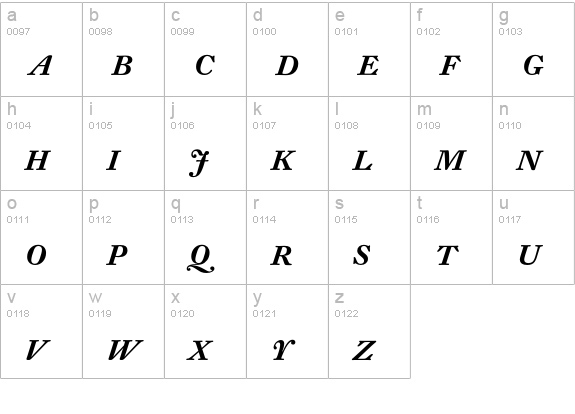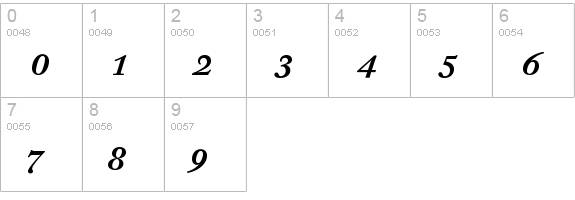
DTL Fleischmann D Medium Italic Caps is a balanced, medium-weight, italic variant in the DTL typeface family \xE2\x80\x94 well suited to sub-headlines, navigation, and balanced editorial work.
The DTL Fleischmann D Medium Italic Caps font exudes elegance and sophistication with its sleek and stylish design. The medium weight adds a touch of modernity, while the italicized letterforms give a sense of fluidity and movement. Perfect for adding a touch of class to any project, this font is versatile and can be used for a variety of design purposes. What's even better is that the DTL Fleischmann D Medium Italic Caps font is available for free download at FontsMarket.com. Whether you're a designer looking to elevate your typography game or a business owner seeking a polished look for your branding, this font is a fantastic choice. Don't miss out on the opportunity to enhance your projects with this sophisticated font - download it for free today!